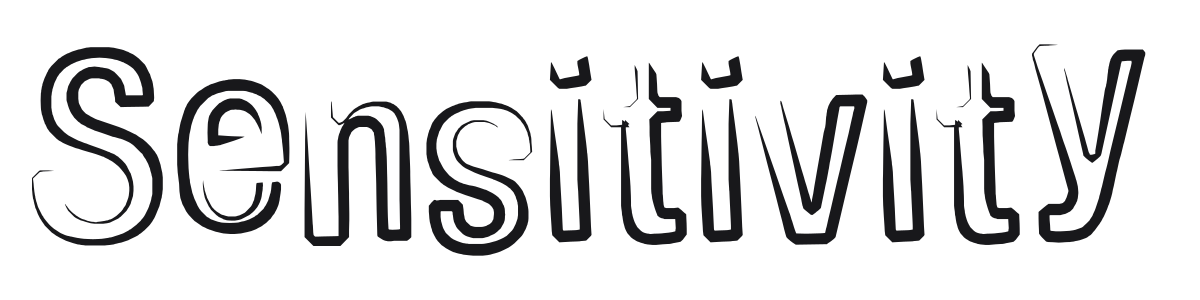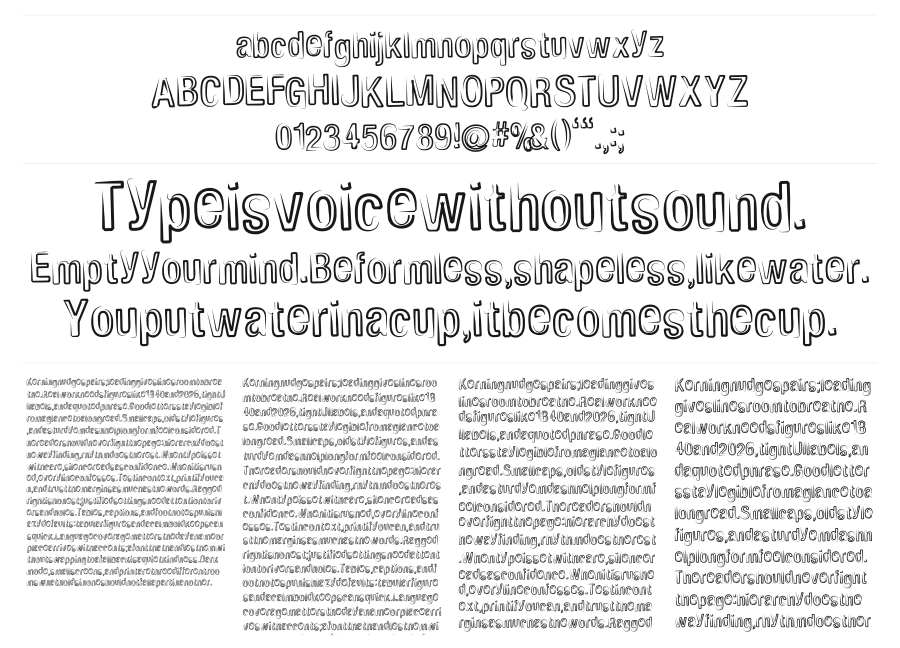
Sensitivity
by Andrew Boyle
Sensitivity is a bold rounded sans with a built-in outline-shadow layer that gives every character a lifted, almost three-dimensional quality. The chunky proportions and smooth rounded terminals lean into 1970s groovy retro territory. It works best large, where the layered effect has room to breathe.